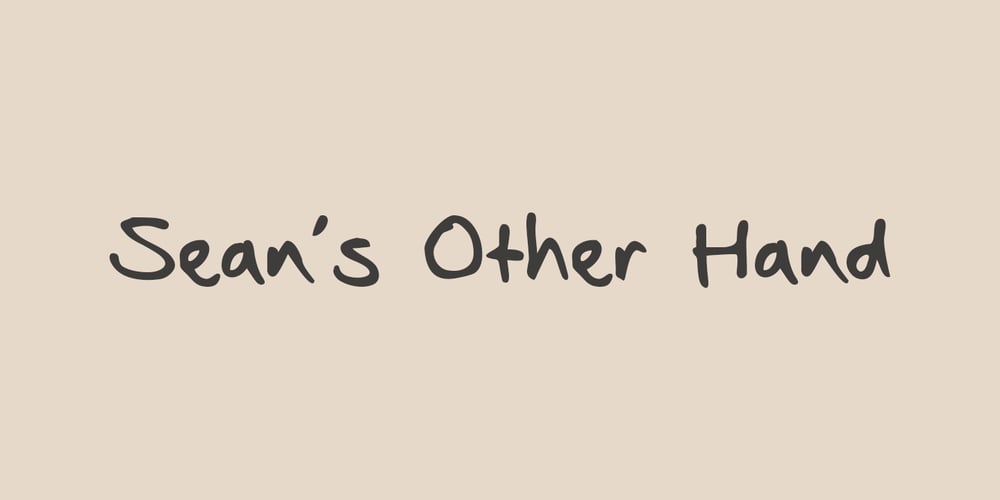
Sean’s Other Hand
Sean’s Other Hand font
Sean’s Other Hand Font Family was designed by Sean Johnson and published by Sean Johnson. Sean’s Other Hand contains 1 styles and family package options. Sean’s Other Hand is a hand-drawn font and was created as an alternative to the popular Hand Of Sean font, by the same designer. It has a looser, more natural feel and is best suited to applications where a more organic, hand-written style is needed. Great for annotating sketches, notebooks and wireframes. Great for use on natural product packaging.